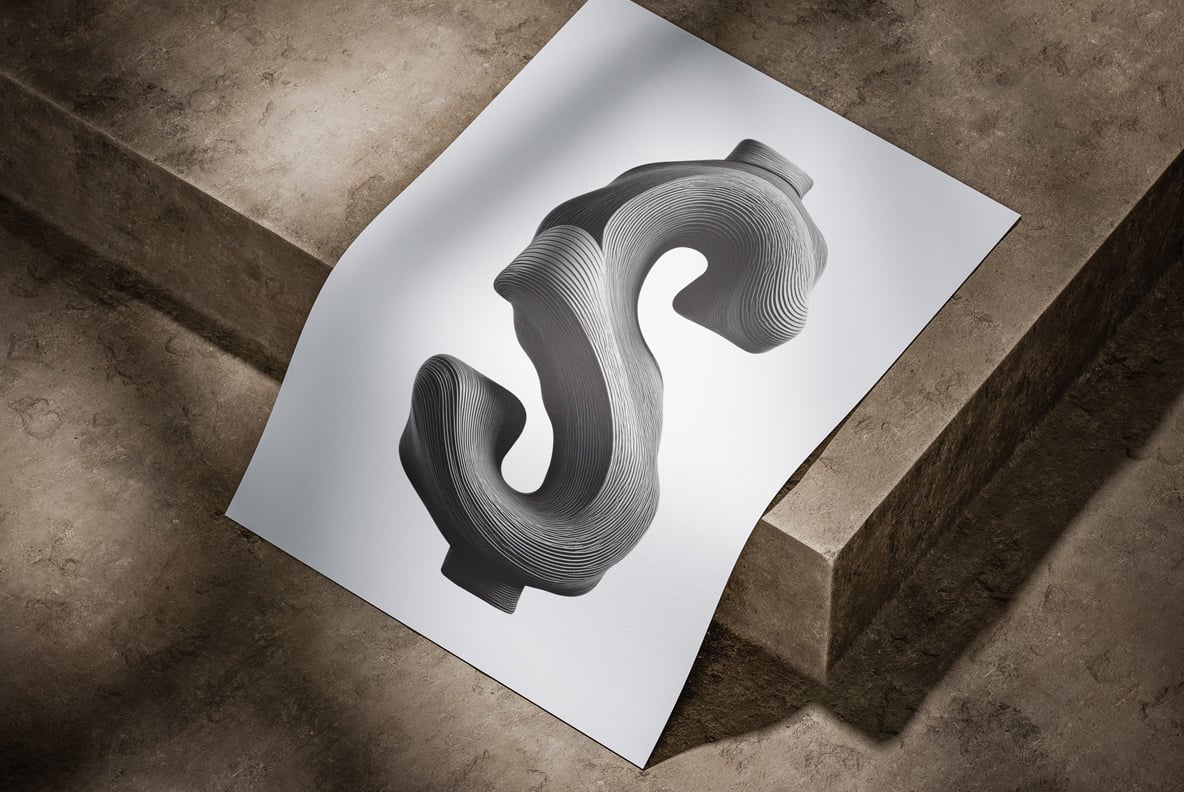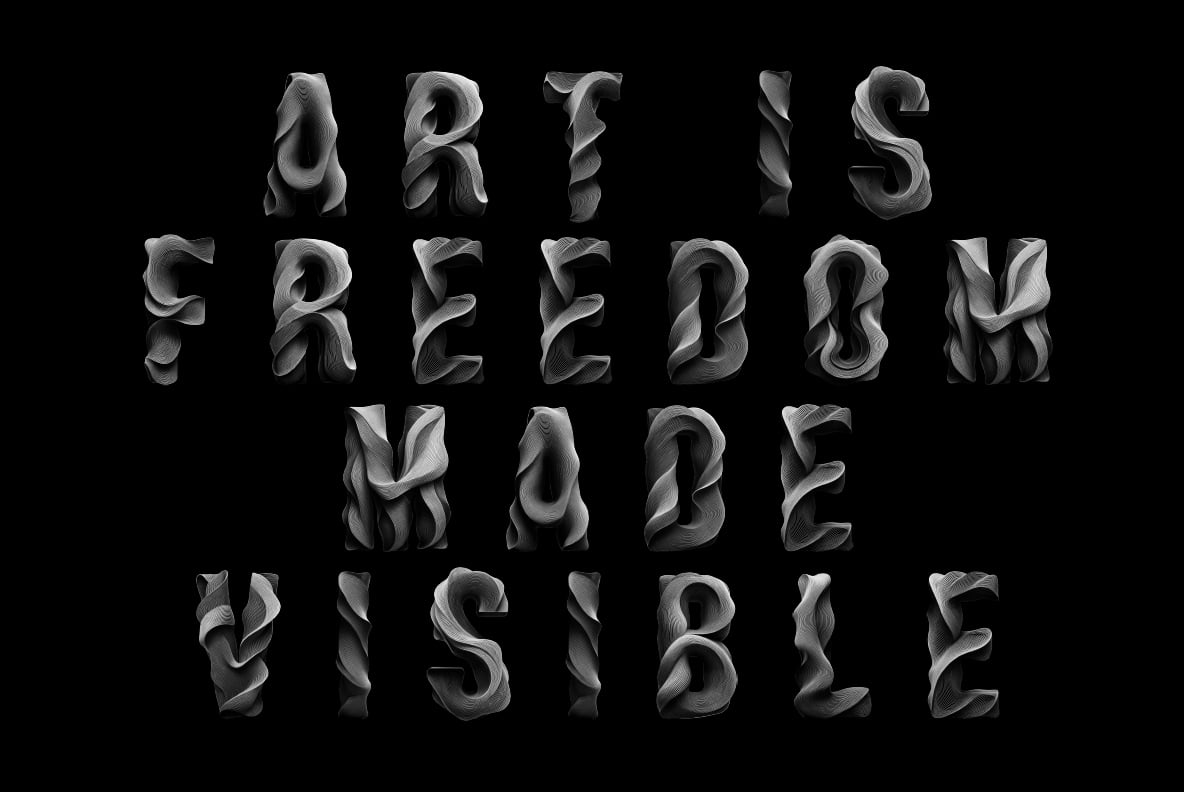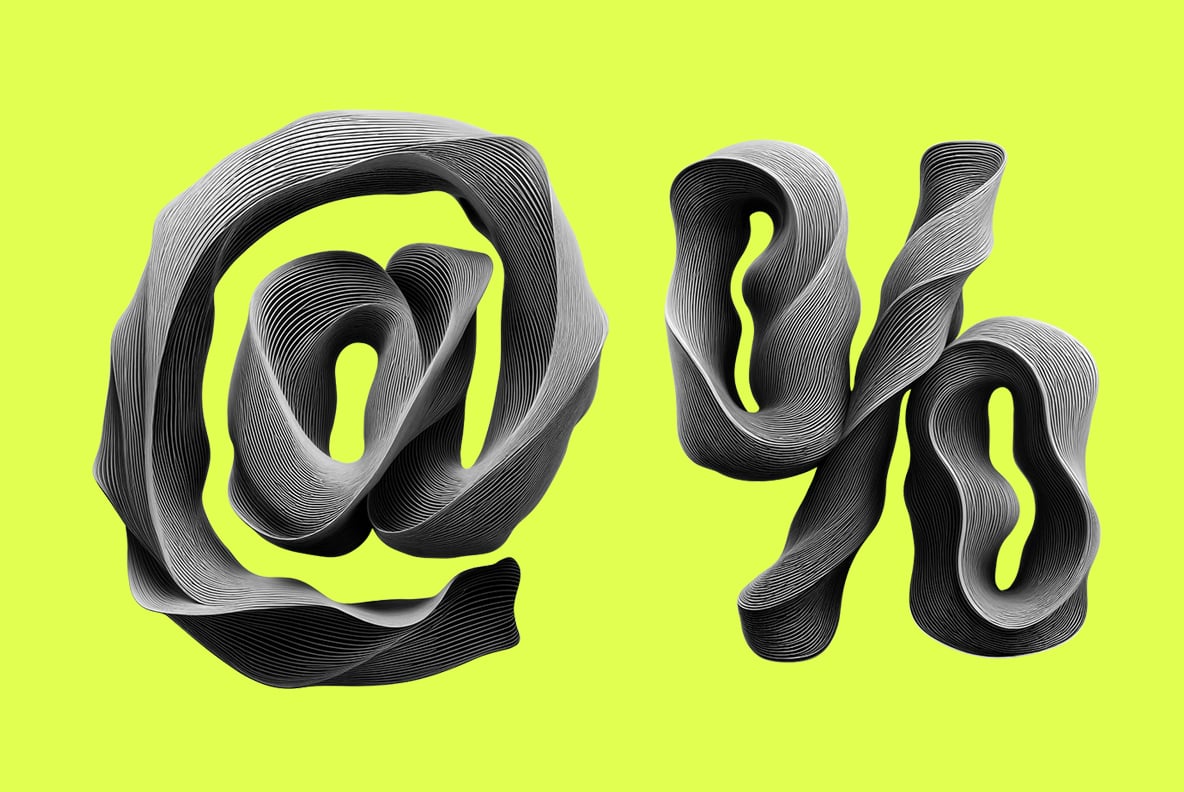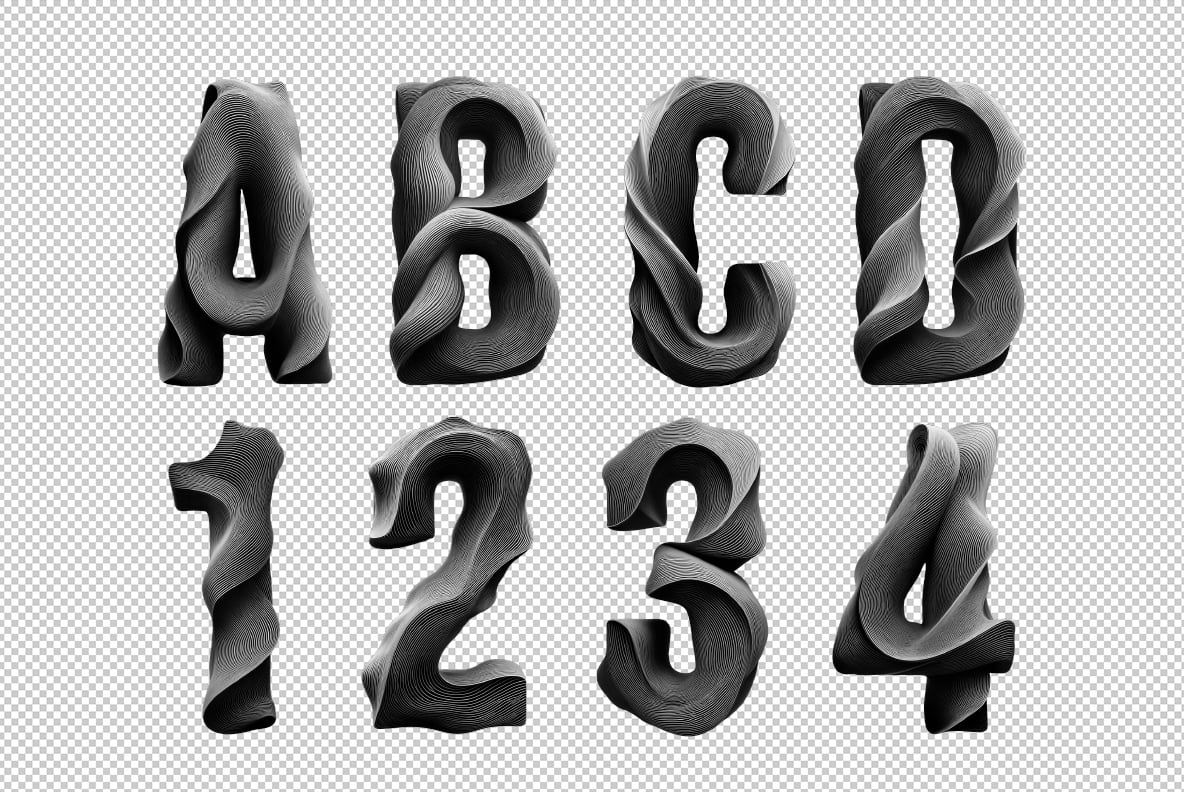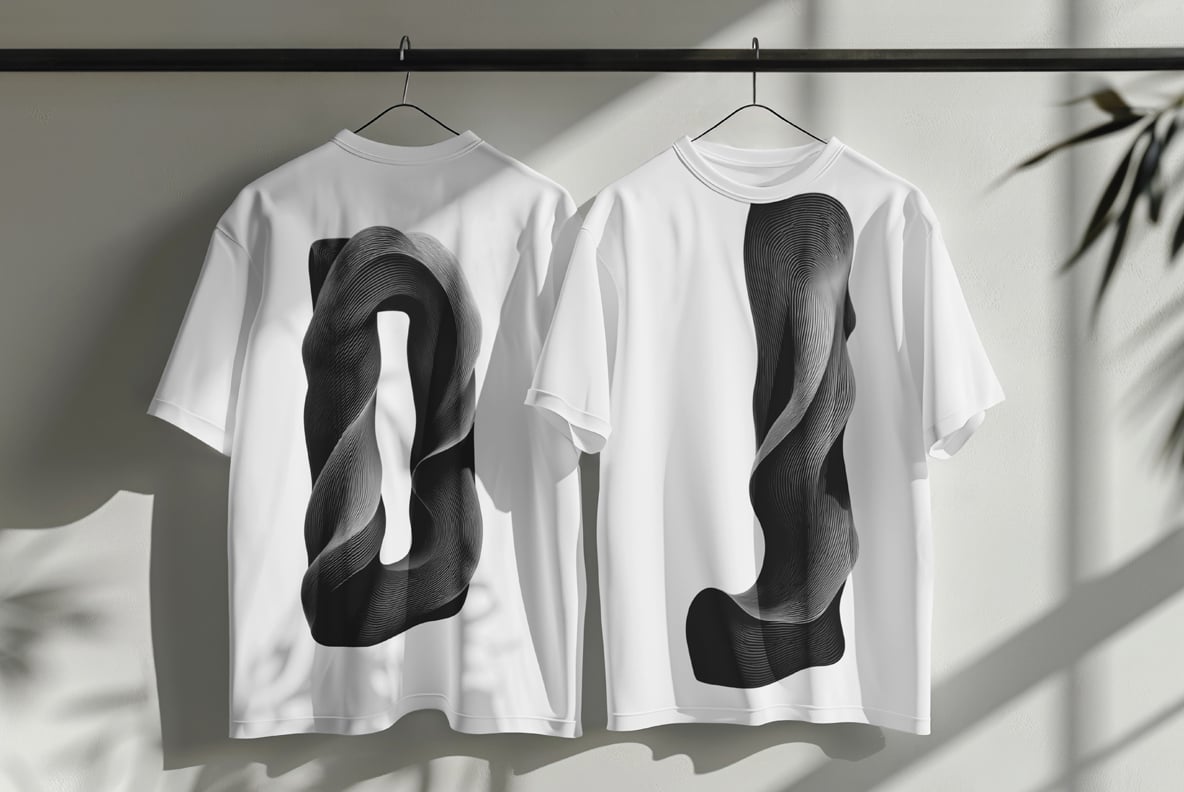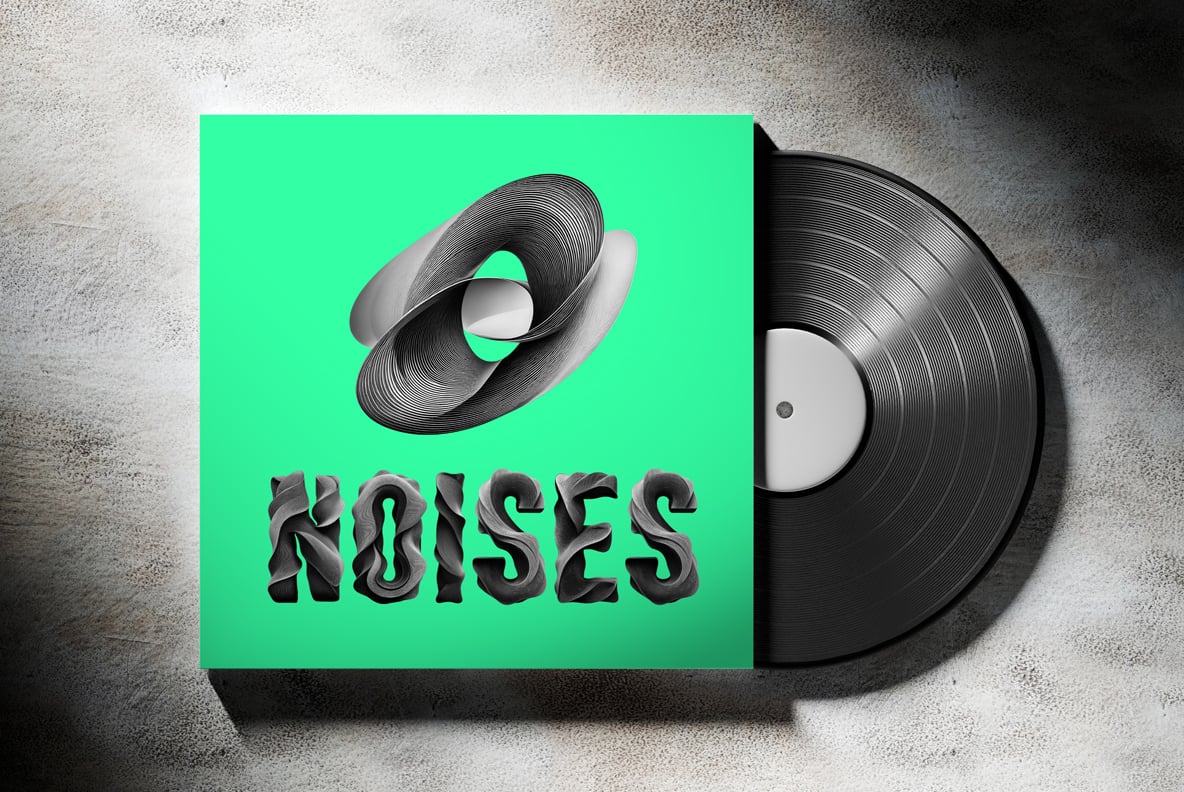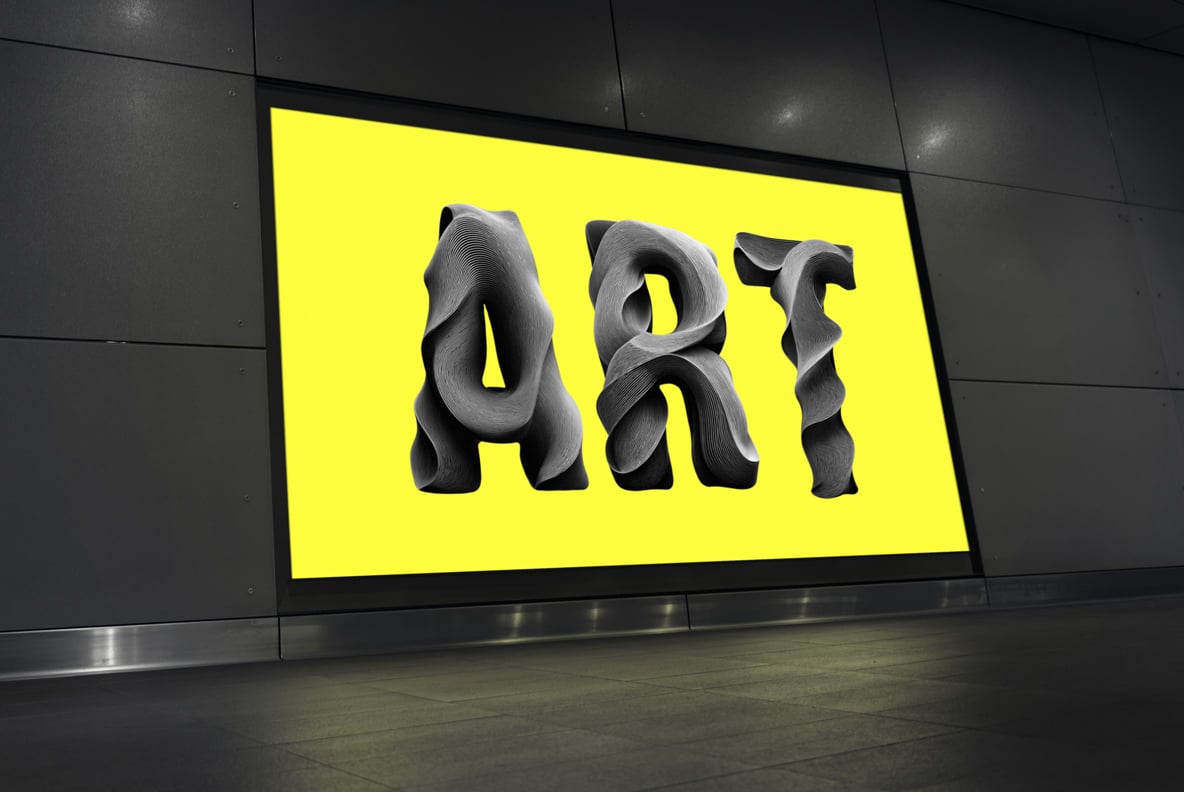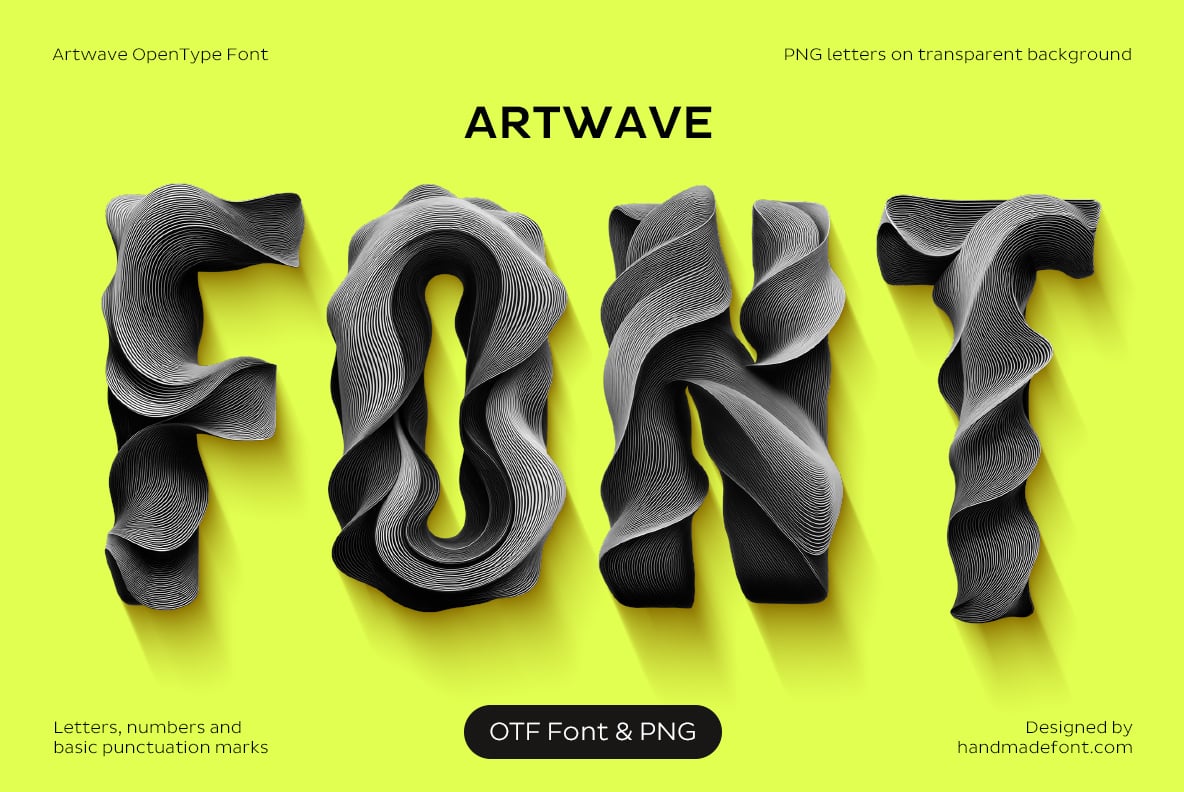
Artwave Font
Edgy, bold, and unapologetically artistic—Artwave Font isn’t just a typeface; it’s a visual rebellion. Each letter ripples with sculptural curves, as if typography and liquid metal had a wild, abstract love child. This art-inspired font twists, distorts, and flows like an avant-garde calligraphy experiment gone beautifully rogue. Designed for those who crave dynamic, high-impact art lettering, its black and white contrast amplifies its hypnotic movement. Think of it as a futuristic display font that whispers “design genius” while shouting “LOOK AT ME!” Whether you’re crafting digital magic or pushing creative boundaries, Artwave is the custom font that makes waves—literally.
A high definition OpenType Font. Contains uppercase characters, numerals and basic punctuation. (Draw height roughly 800 pixels). All letters and glyphs that comprises this font you can see on the preview.
Others : ! ? - . ' $ € % & # @